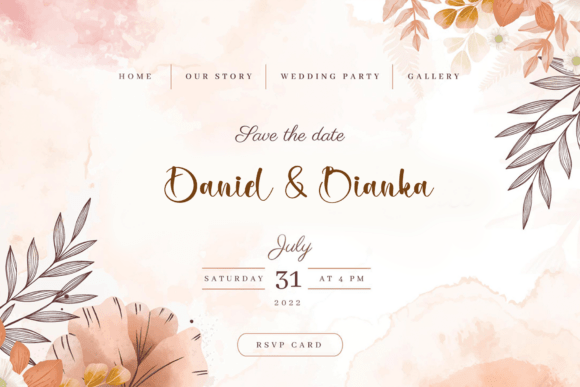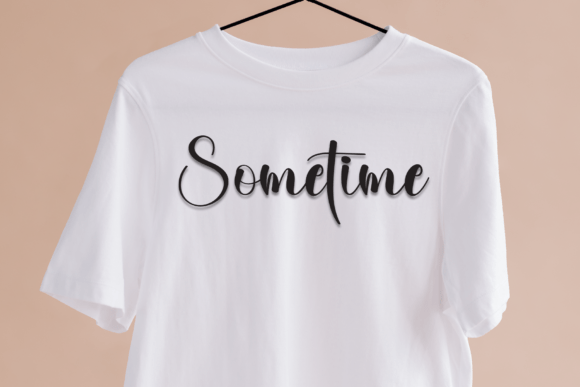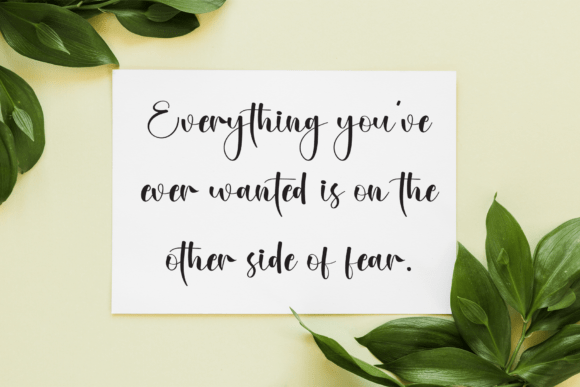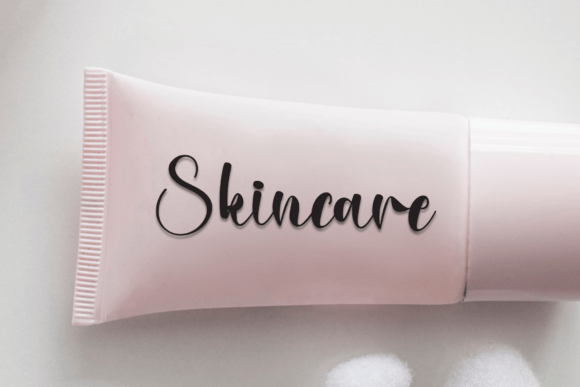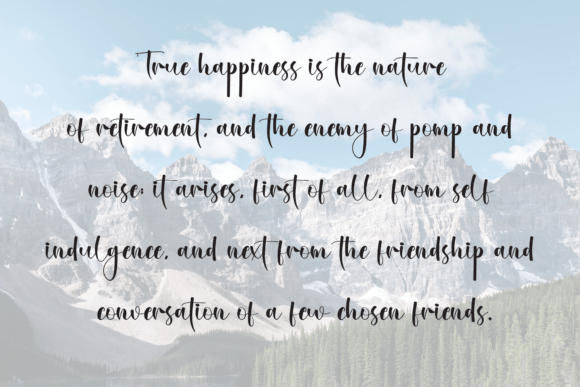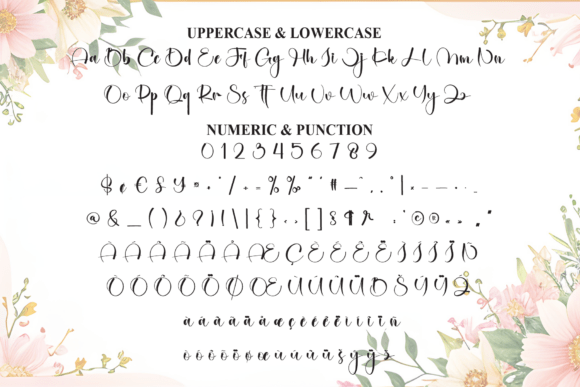
Discover the Charm of Clara Font: Elevate Your Designs with a Fresh and Delightful Handwritten Style
In the world of typography, fonts play a crucial role in conveying the tone and personality of a brand or creative project. For designers and crafters looking to add a touch of elegance and playfulness to their work, Clara Font is an excellent choice. This beautiful handwritten font is designed to bring a cheerful and sophisticated vibe to a wide range of applications, from branding and logos to greeting cards, packaging, and social media posts.
The Unique Characteristics of Clara Font
Clara Font stands out for its smooth curves, tall letterforms, and a playful charm that sets it apart from other fonts. Its fresh and delightful style is perfect for those seeking to create a lasting impression with their designs. Whether you’re working on a logo, a brochure, or a social media campaign, Clara Font’s elegant and cheerful demeanor is sure to captivate your audience.
Key Features of Clara Font
- Smooth Curves: Clara Font boasts smooth, flowing curves that give it a soft and approachable feel, making it ideal for designs that require a friendly and inviting tone.
- Tall Letterforms: The tall and slender letterforms of Clara Font add a level of sophistication and elegance, perfect for headlines, titles, and any design element where you want to make a statement.
- Playful Charm: Despite its elegance, Clara Font retains a playful charm that makes it versatile for a variety of creative projects, from whimsical greeting cards to professional branding.
Applications of Clara Font
The versatility of Clara Font makes it suitable for a multitude of applications. Here are some of the ways you can use Clara Font to elevate your designs:
- Branding: Create a memorable brand identity with Clara Font. Its unique blend of elegance and playfulness makes it perfect for logos, business cards, and letterheads.
- Logos: A well-designed logo is crucial for any business. Clara Font’s distinctive style can help your logo stand out and convey your brand’s personality.
- Greeting Cards: Add a personal touch to your greeting cards with Clara Font. Its cheerful vibe makes it ideal for invitations, thank you cards, and holiday greetings.
- Packaging: Make your product packaging more appealing with Clara Font. It can add a touch of sophistication and charm to labels, tags, and packaging materials.
- Social Media Posts: Enhance your social media presence with Clara Font. Use it to create eye-catching posts, stories, and banners that engage your audience.
Tips for Using Clara Font Effectively
To get the most out of Clara Font, consider the following tips:
- Pair with Complementary Fonts: Clara Font works well with a variety of fonts. Experiment with pairings to find the perfect complement for your design.
- Adjust Letter Spacing: Adjusting the letter spacing can enhance the readability and aesthetic of your text. Experiment with different spacings to find what works best for your project.
- Use for Headlines and Titles: Take advantage of Clara Font’s tall letterforms and elegant style by using it for headlines and titles. This will help draw attention and add a professional touch to your designs.
Clara Font is a versatile and charming handwritten font that can add a fresh and delightful touch to your creative projects. With its smooth curves, tall letterforms, and playful charm, it’s an excellent choice for designers and crafters looking to create elegant and engaging designs. Whether you’re working on branding, logos, greeting cards, packaging, or social media posts, Clara Font is sure to elevate your work and leave a lasting impression on your audience.